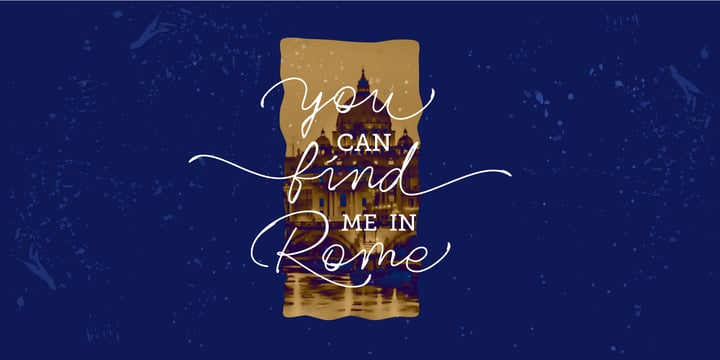
Rinstonia
by Typia Nesia
The Rinstonia Font Family was designed by Arief Setyo Wahyudi and published by Typia Nesia. Rinstonia contains 1 styles. More about this family
Rinstonia is a signature style typeface. Rinstonia is a beautiful script font that is such a pleasure to work with! The perfect flow and easy signature style works perfectly on invitations, blog headers, branding, art quote, book / cover title, and so much more! Rinstonia typeface comes with upper and lowercase Standard Characters, Punctuation, Numerals. And other Glyphs variation of the OpenType features such as Standard Ligature, Stylistic Alternate and 5 Stylistic Set (ss01 - ss05). Typia Nesia Studio Malang - Indonesia
Designers: Arief Setyo Wahyudi
Foundry: Typia Nesia
Typia Nesia is an independent type foundry founded by Arief Setyo Wahyudi in 2016, headquartered in Malang, Indonesia. We specialize in crafting unique, functional fonts with modern aesthetics. Our mission is to provide high-quality typographic solutions for designers, developers, and brands. With a diverse portfolio of serif, sans-serif, script, and decorative fonts for digital and print applications, we also offer custom font design, typography consulting, and brand-specific font development.